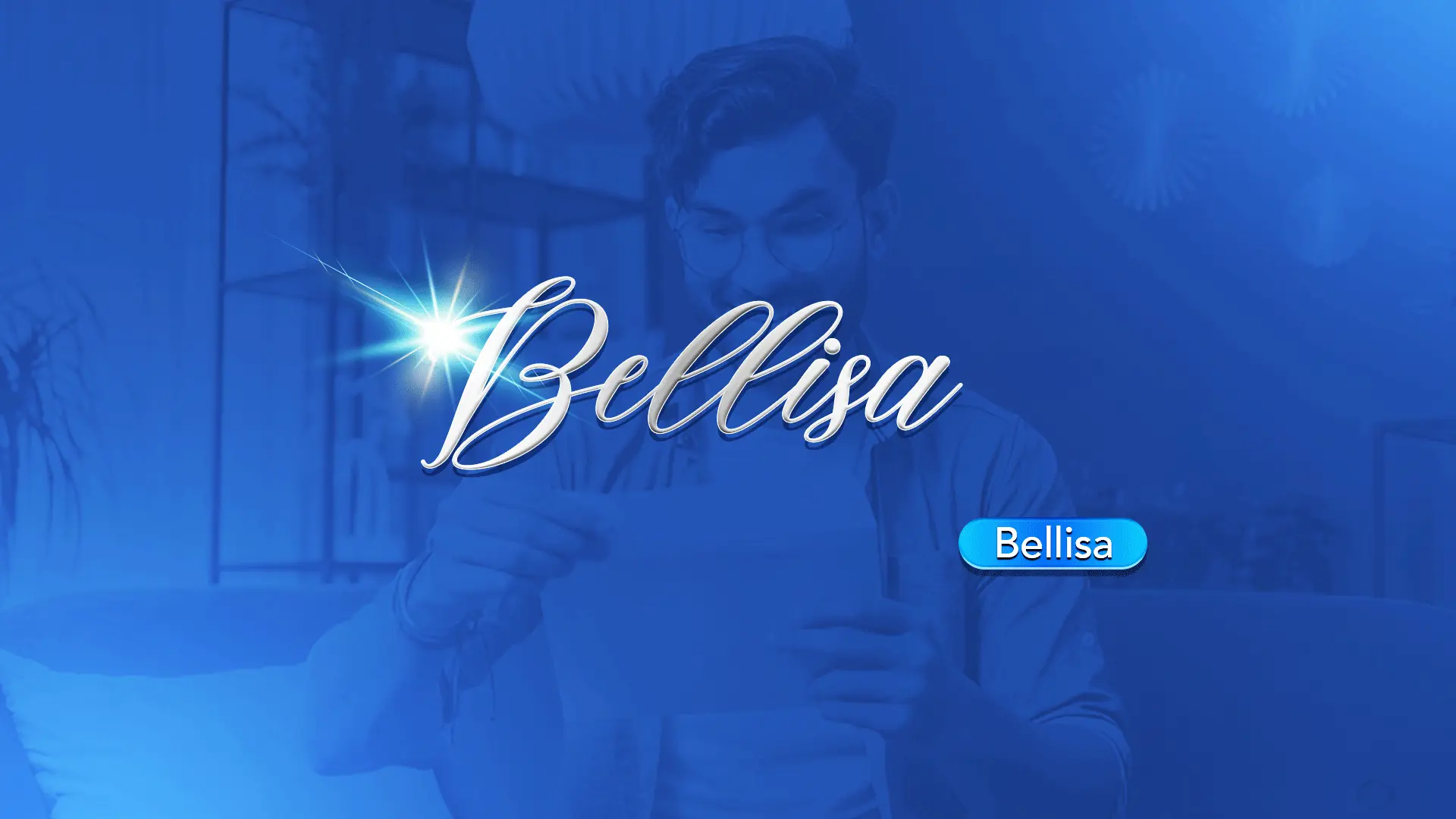
The Bellisa font family may be ideal for you if you enjoy working on an artistic design project. The lively, expressive look of this typeface, which was created by Munawir, makes it ideal for Invitations, Branding and Logos, Social Media & Digital Content( Quote Graphics to present inspirational quotes, poetry, or elegant messages in a visually appealing way. ), Luxury Goods Packaging & Labels and other light-hearted visual projects.
Regular are the one primary font styles of the Bellisa font family. You may build dynamic, visually appealing text layouts with the distinct flair that each style offers. With crisp, readable lines and a relaxed tone.